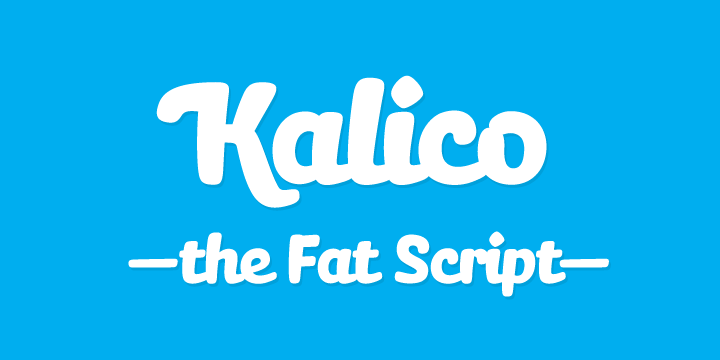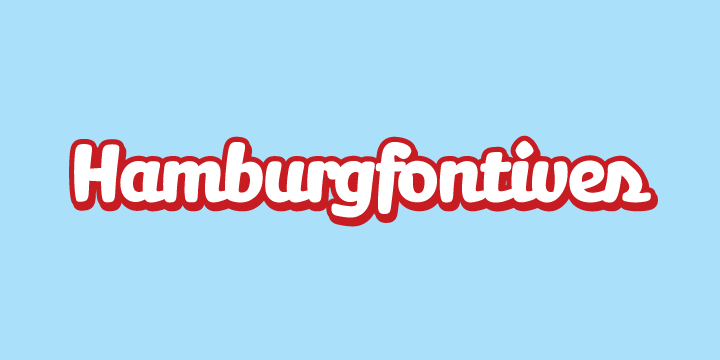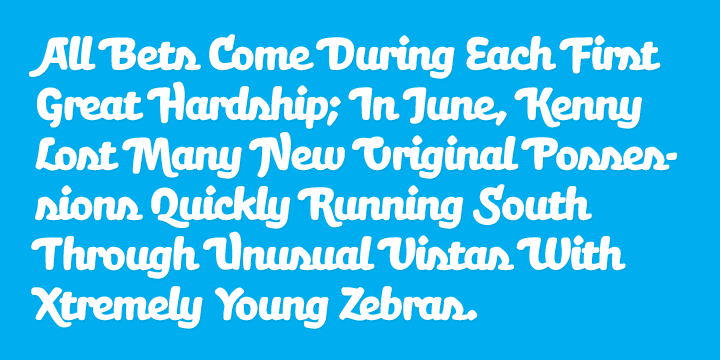
Kalico
Font Family by Miller Type Foundry
Kalico is the fat script that makes a statement!
Comes with oldstyle figures and available with a swash counterpart.
Kalico Swash
Kalico Script